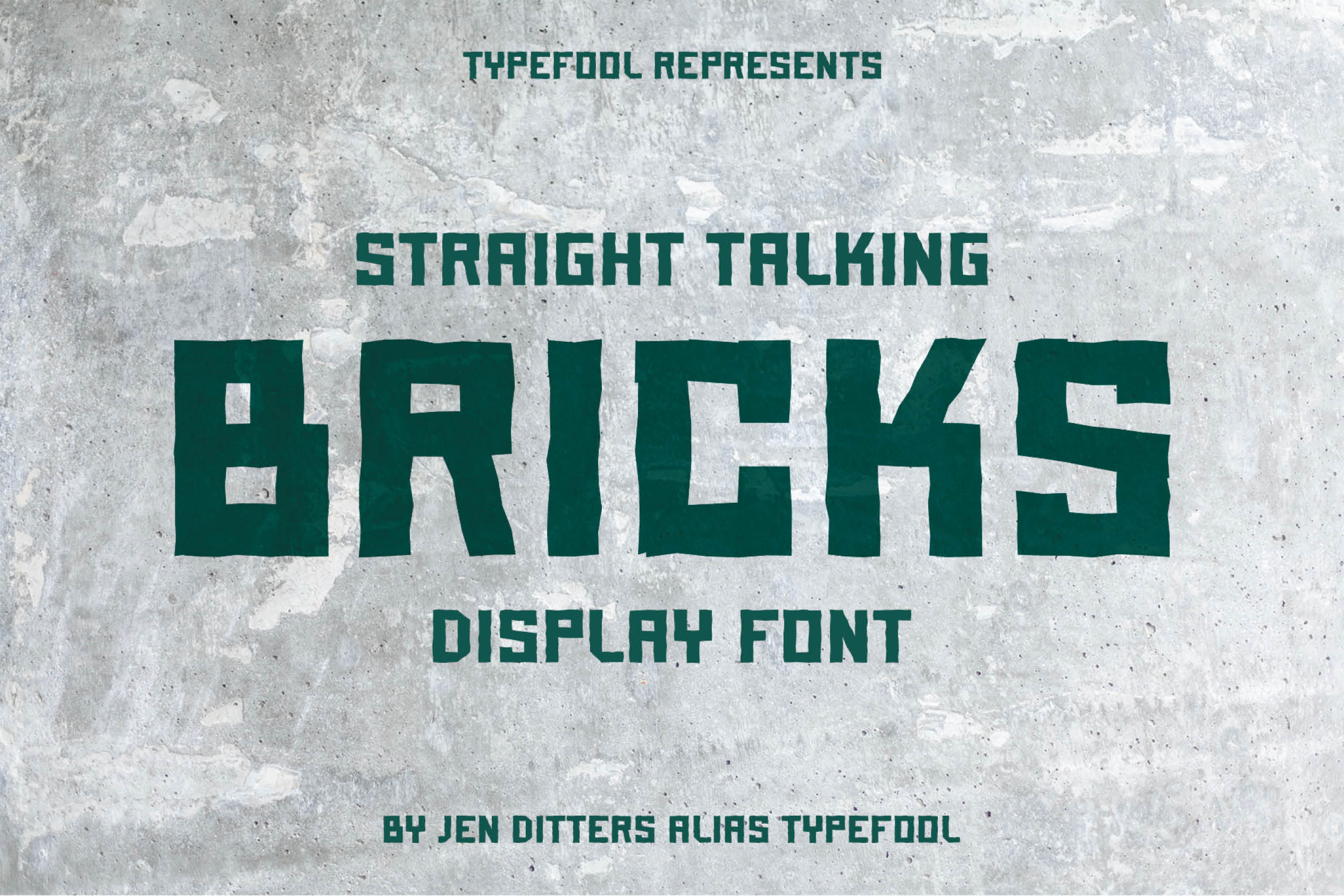
Bricks font
BRICKS
Introducing, BRICKS font – A display typeface font with a bold an unusual form. This font has unique shapes, it is inspired by bricks, and therefore has a rough look and feel with no curves, but only angled cuts. Ideal for print like billboards, poster advertising, web, headlines, brand identity, short sentences and branding.